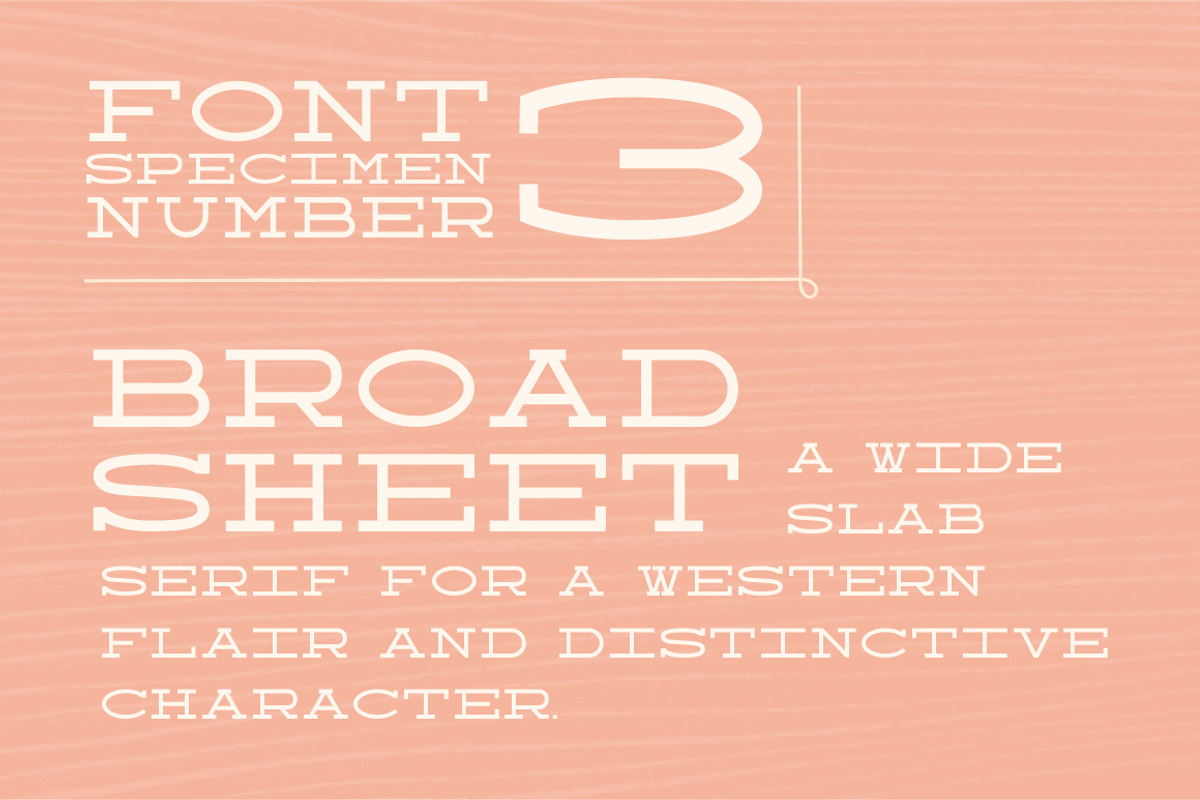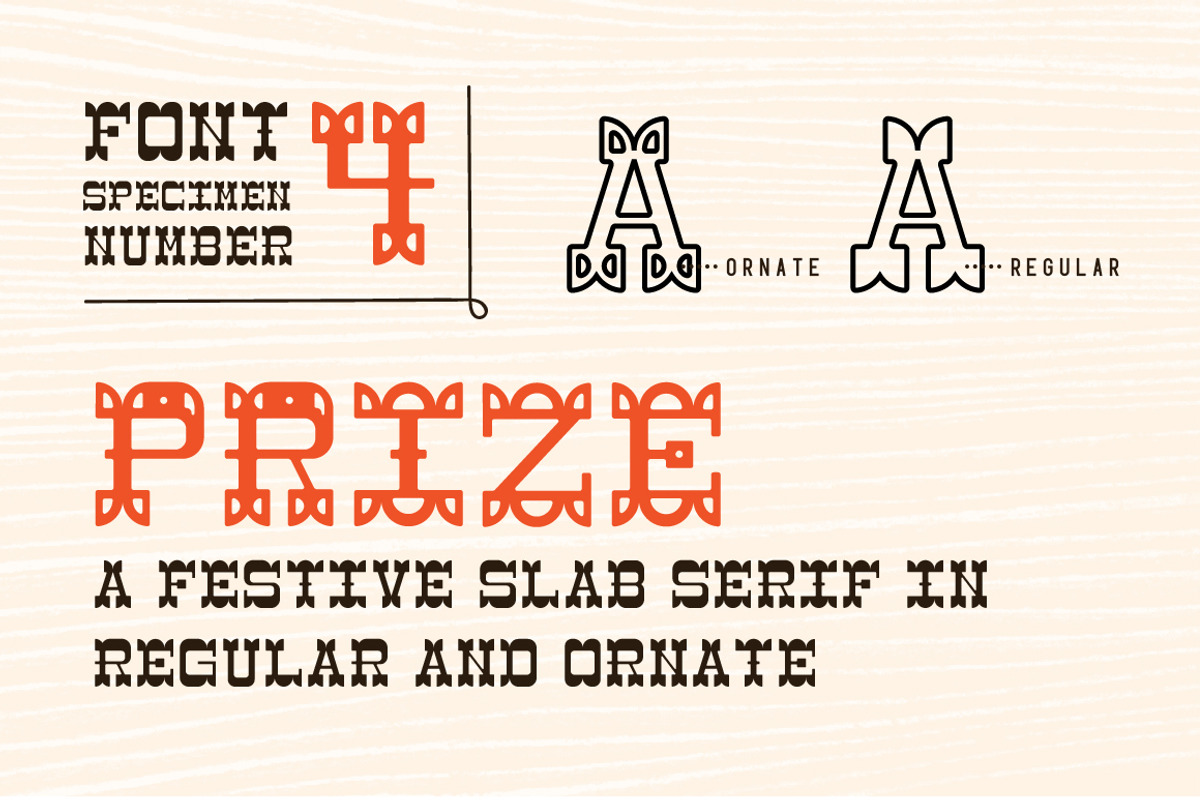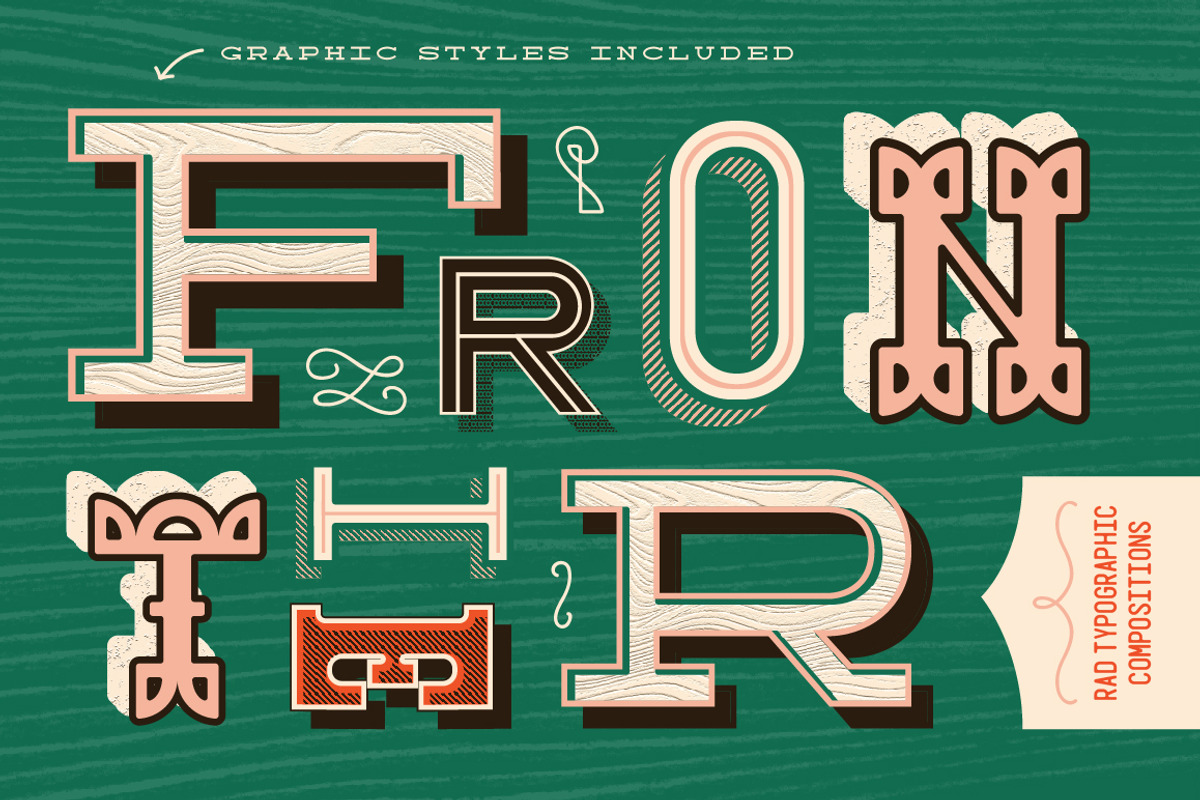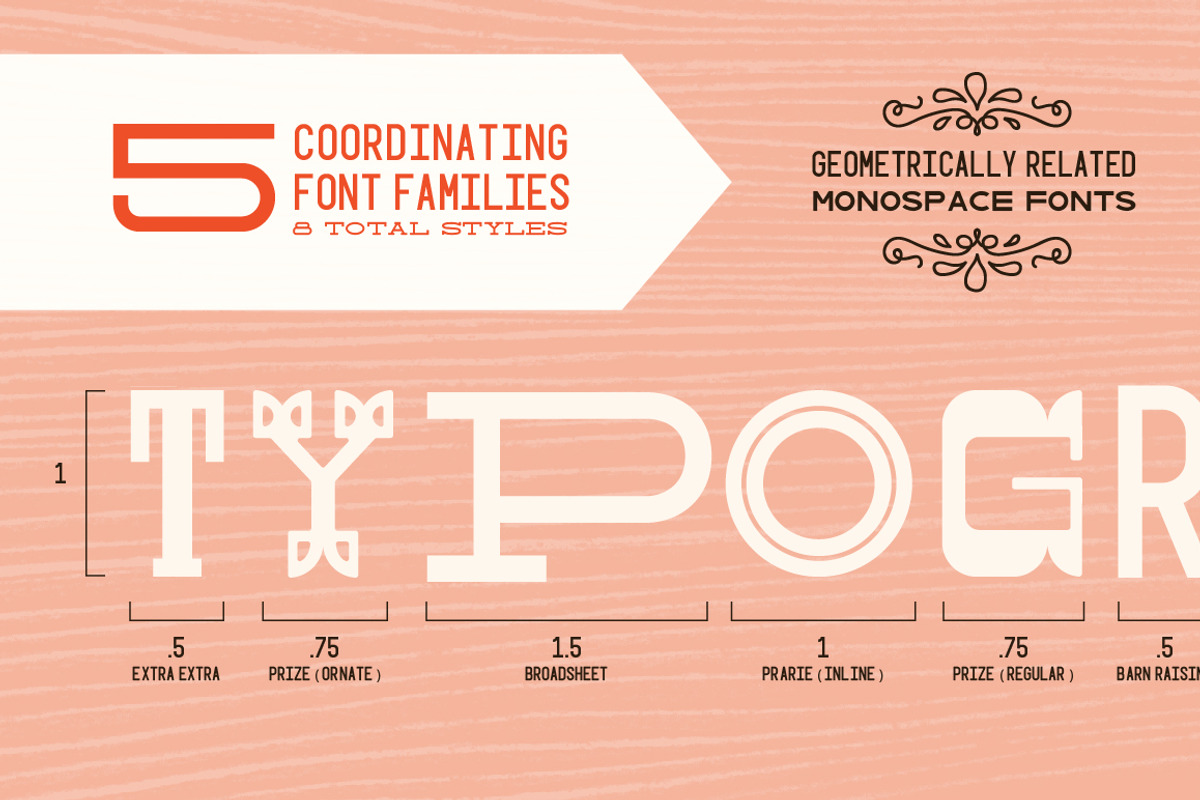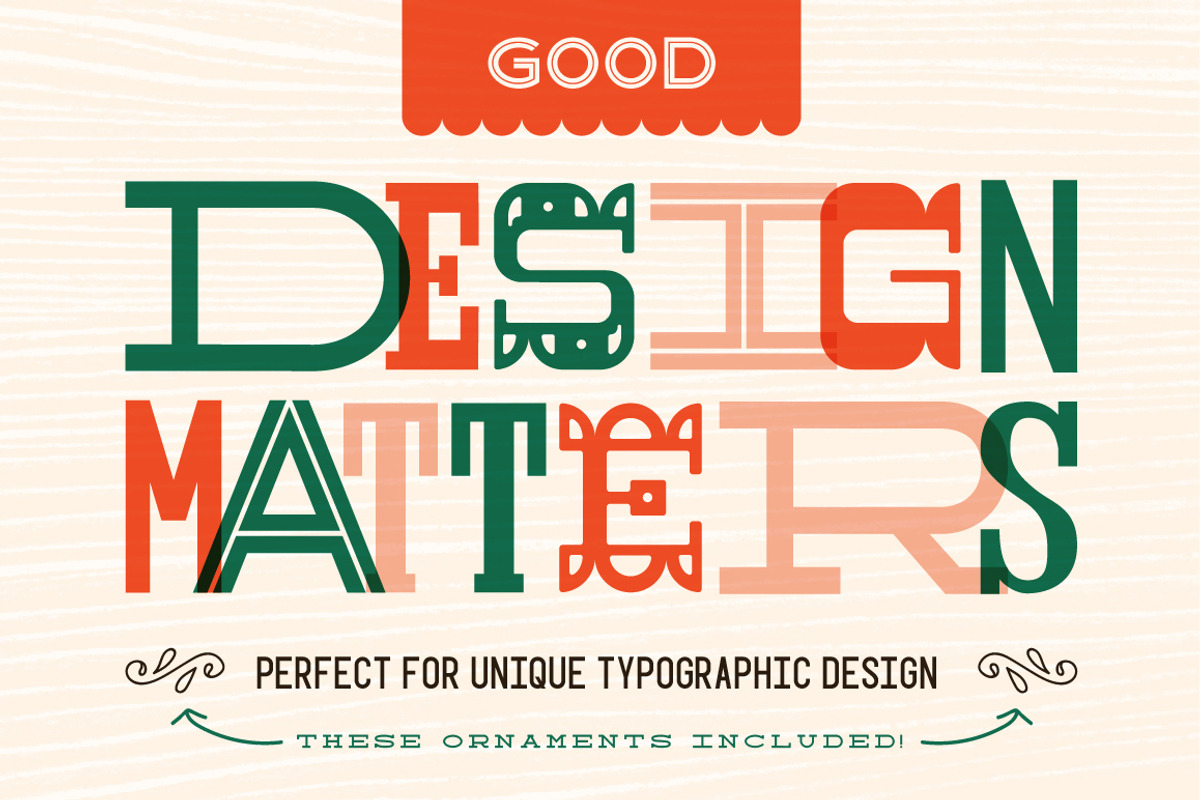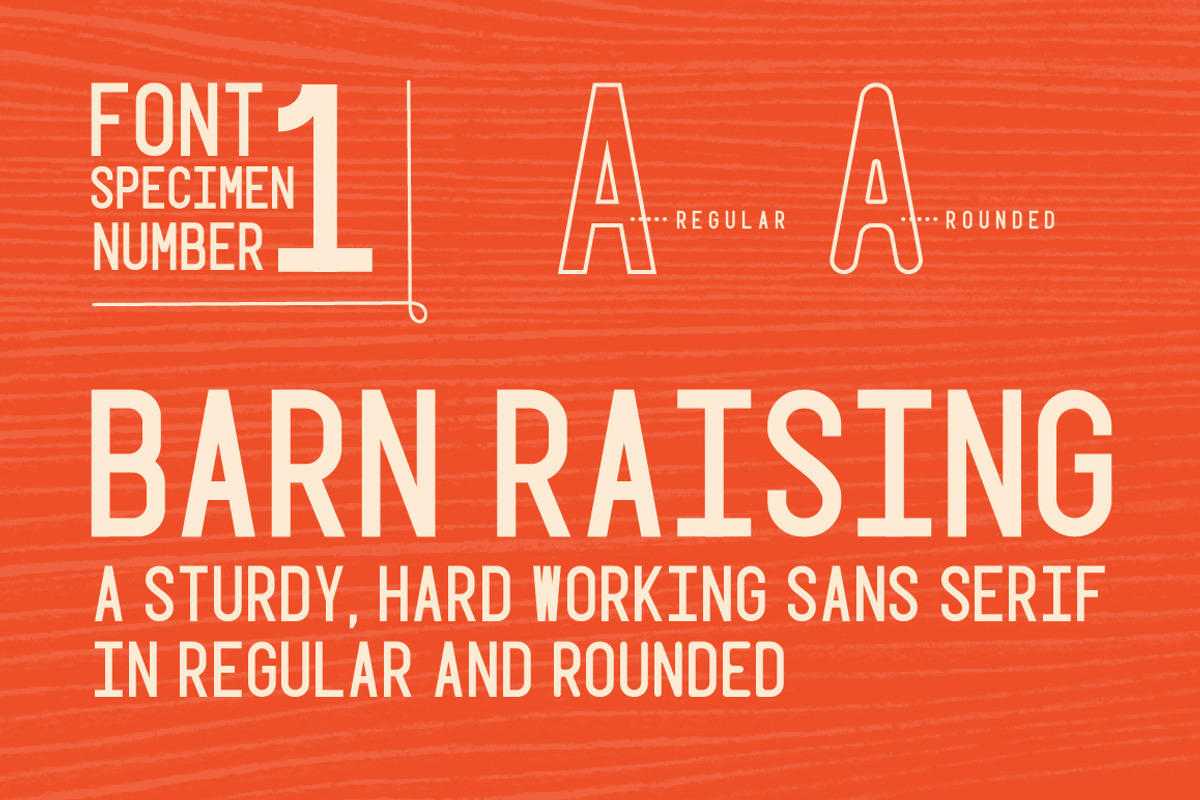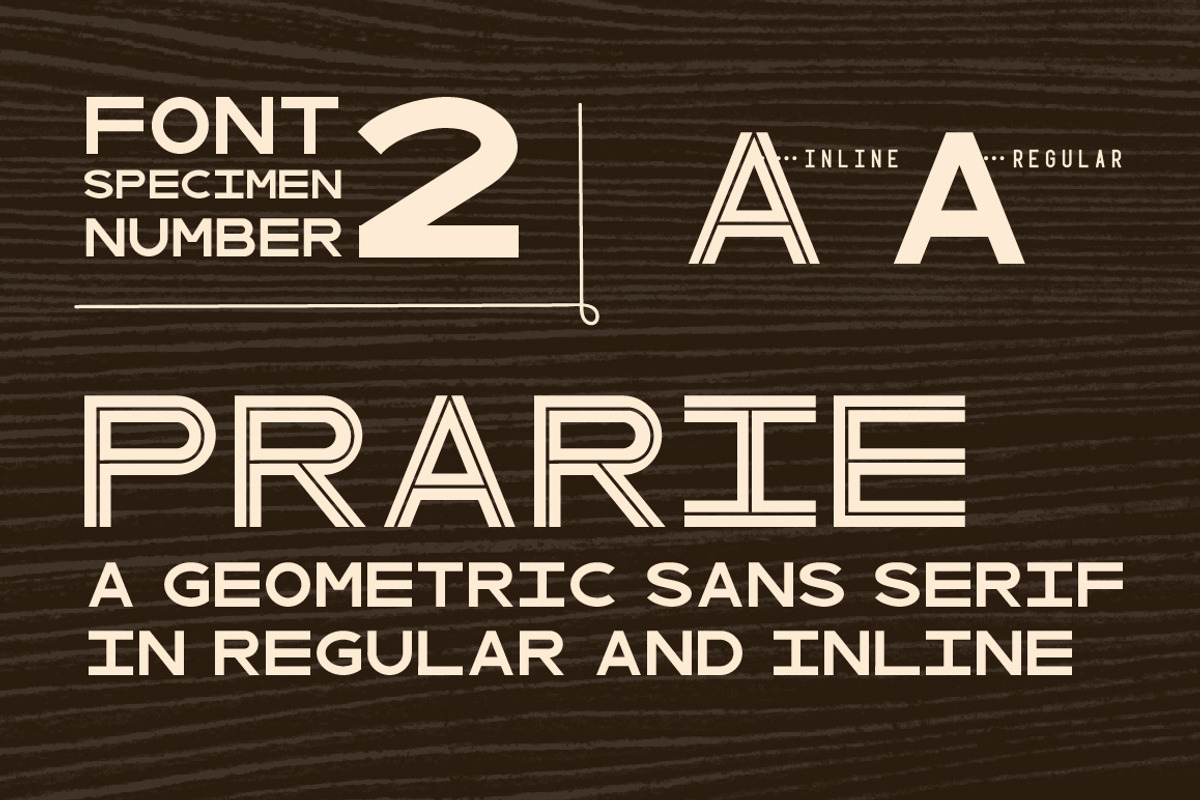
Wood Type Font Collection
Hey there and howdy friends! I'm excited to release this collection of 5 font families (9 total styles), monospace fonts that were created to work together! Their relative proportions make them work perfectly together, creating a unique aesthetic reminiscent of eclectic 1900s wood type printing! The fonts include:
Barn Raising, a sturdy sans-serif in regular and rounded, each letter half as tall as it is wide.
Prairie, a perfectly square geometric serif, in inline and regular.
Broad Sheet, a wide slab serif with 1.5:1 proportions. This one has a western flair but is simple enough to work for a variety of projects.
Prize, an ornate slab serif with a circus / carnival vibe. This one comes in regular and ornate.
Extra extra, a quirky slab serif most like 1900s printmaking letters. In regular and rounded.
All the fonts include capital letters, numbers, and punctuation .,'?!&#